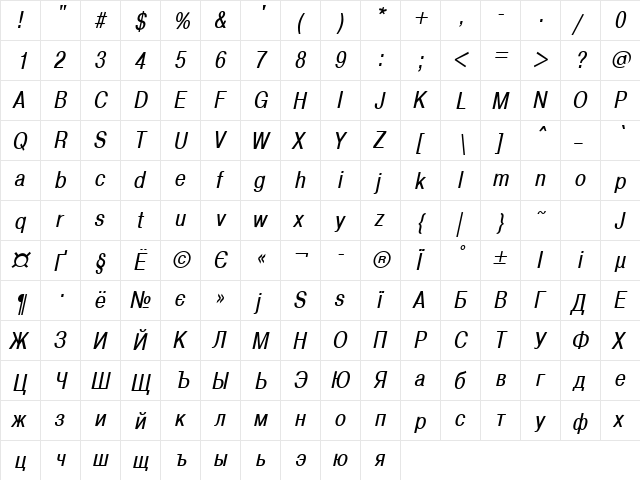
A1011Helvetika TYGRA Condensed
Design Context for A1011Helvetika TYGRA Typeface
A1011Helvetika TYGRA takes a measured approach to typography — its balanced proportions and neutral character make it a reliable workhorse for both digital and print work. The condensed width makes it efficient for tight spaces without sacrificing legibility.